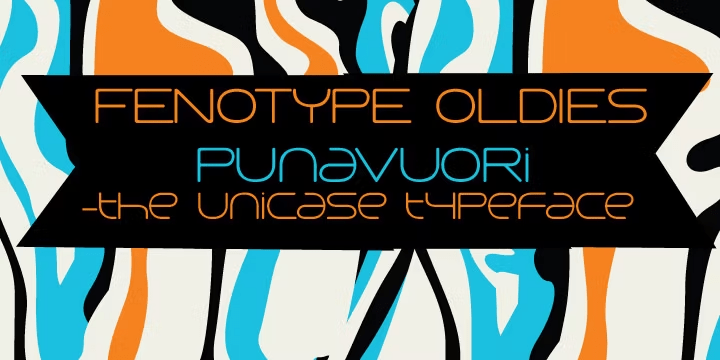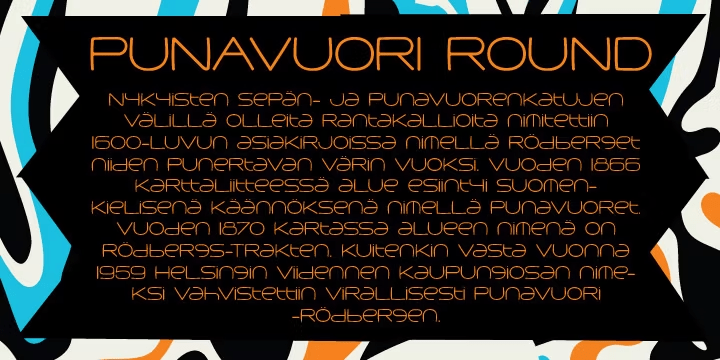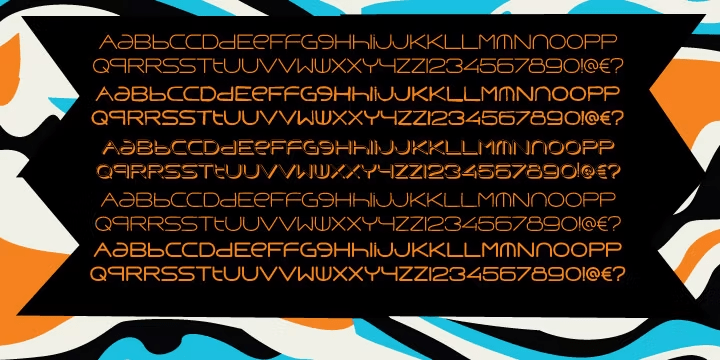
Punavuori
Font Family by Fenotype
Punavuori is a clean geometric unicase font. It's best for display use in magazines, books & posters. Punavuori font was originally designed in 2002. Now it's been remade with the complete character set and five different versions.